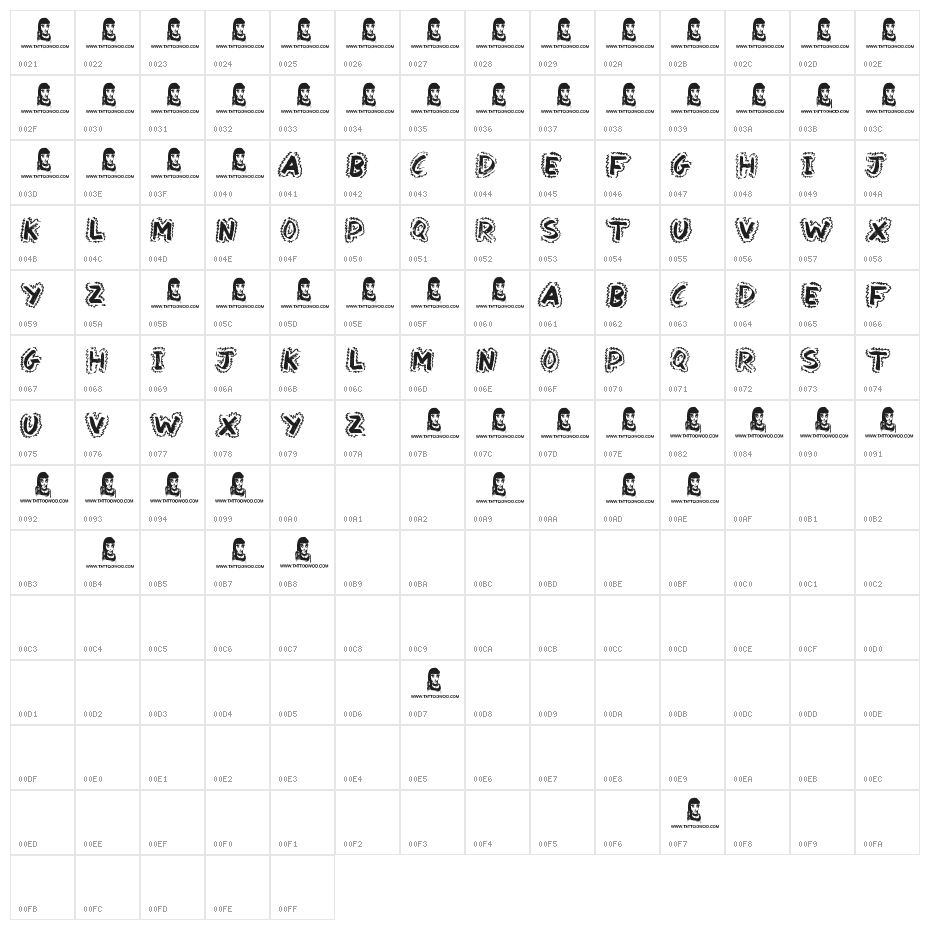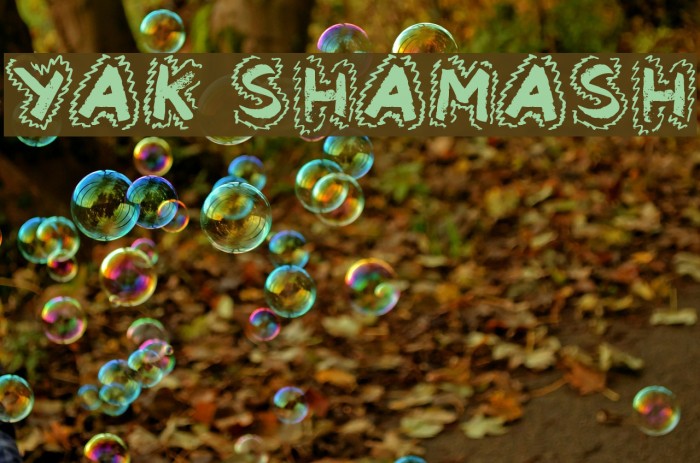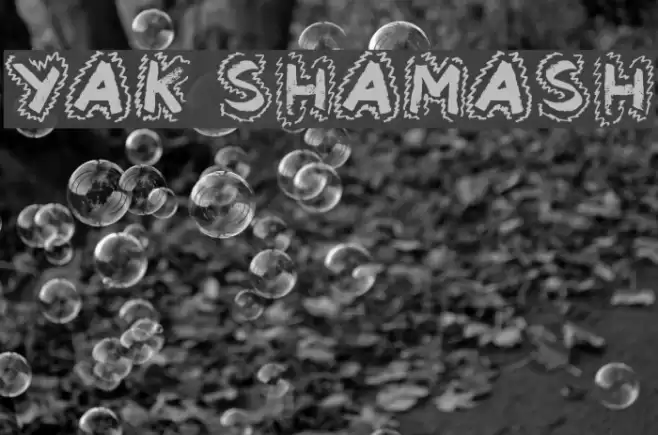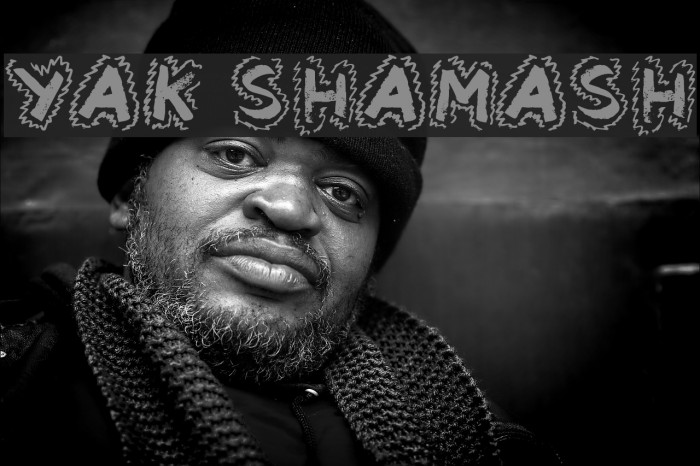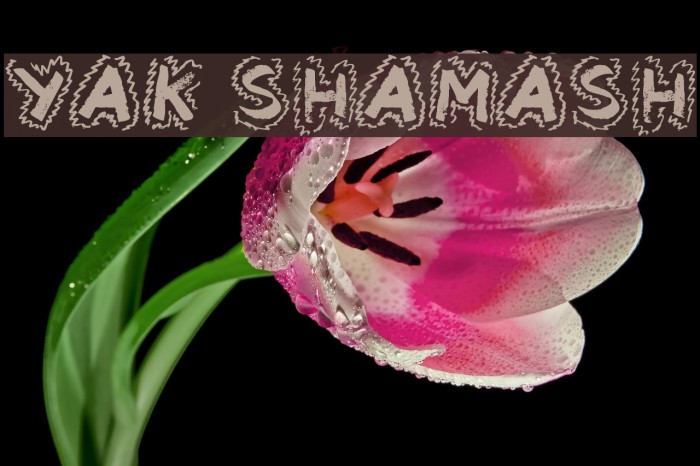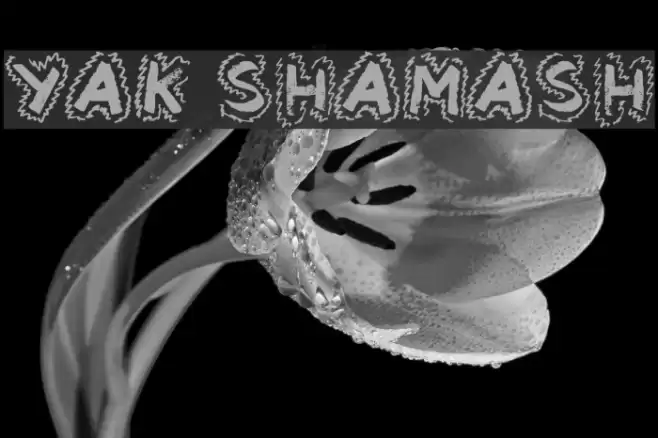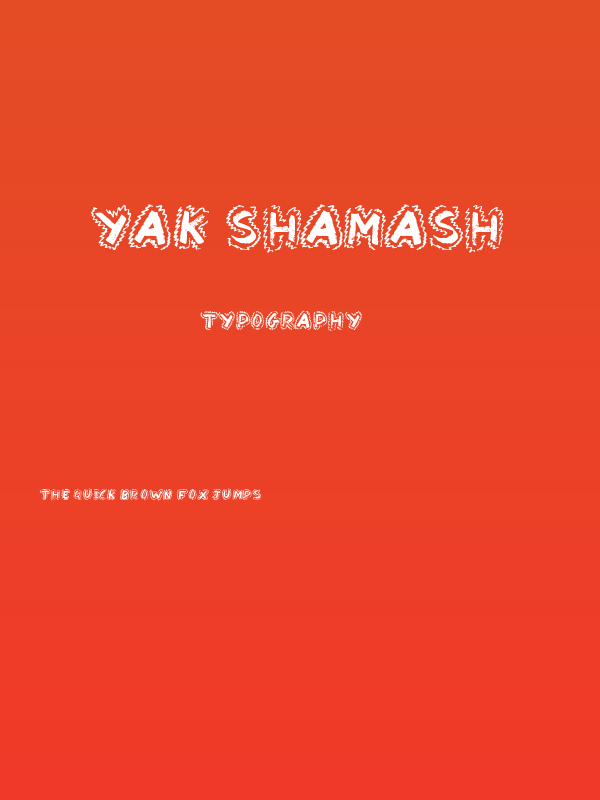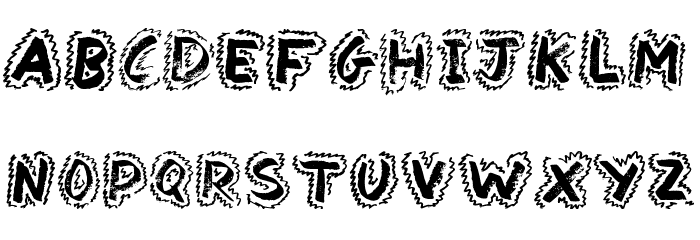
Yak Shamash Font
Yak Shamash Description
This font features a bold and dynamic style with jagged, irregular edges that give it a rugged and energetic appearance. The uppercase letters are prominent and eye-catching, making it suitable for designs that require a strong visual impact. The characters are filled with a solid black color, surrounded by a white outline that enhances their visibility. This font's unique, distressed look makes it ideal for projects that aim to convey a sense of excitement or intensity. The overall design is consistent across all letters, maintaining a cohesive and striking aesthetic.
| Proposed Projects | Ideal for posters, album covers, or any project requiring a bold, impactful design. |